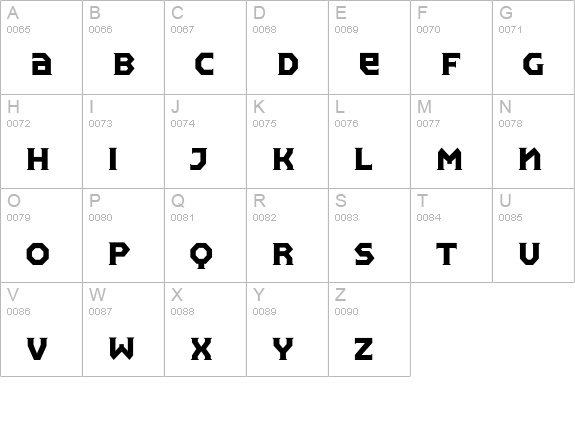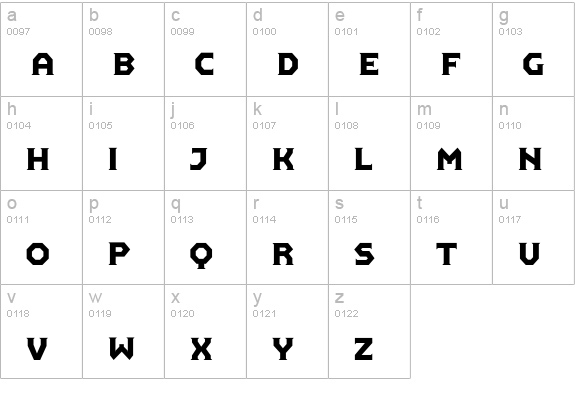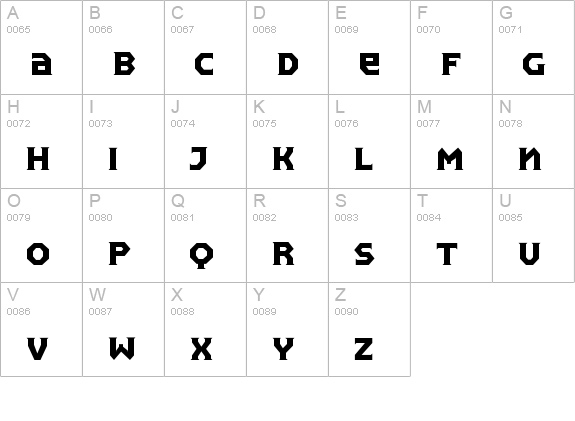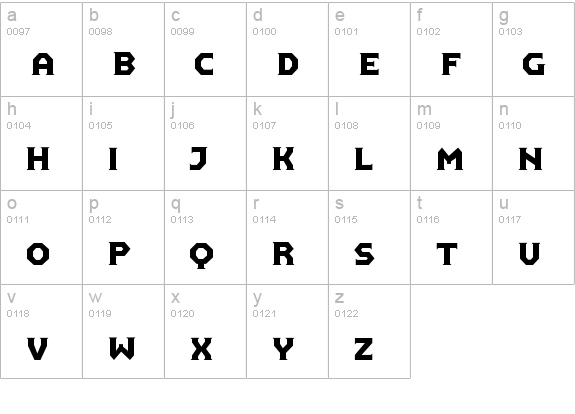
Pullman-Normal is the standard, neutral variant in the Pullman typeface family \xE2\x80\x94 well suited to general body text, paragraphs, and standard typographic work.
Pullman-Normal font is a versatile and modern typeface that exudes elegance and sophistication. With its clean lines and balanced proportions, this font is perfect for a wide range of design projects, from branding to editorial layouts. Featuring a timeless appeal, Pullman-Normal font adds a touch of class to any design. What sets Pullman-Normal font apart is that it is not only beautifully crafted but also available for free download at FontsMarket.com. This means you can bring a touch of luxury to your projects without breaking the bank. Whether you're working on a website, a brochure, or any other design project, Pullman-Normal font is sure to elevate your work to the next level. Don't miss out on this opportunity to enhance your designs with the elegance of Pullman-Normal font. Download it for free today from FontsMarket.com and see the difference it can make in your projects.